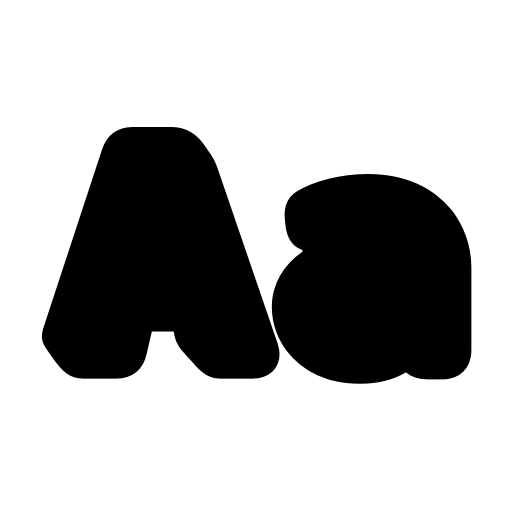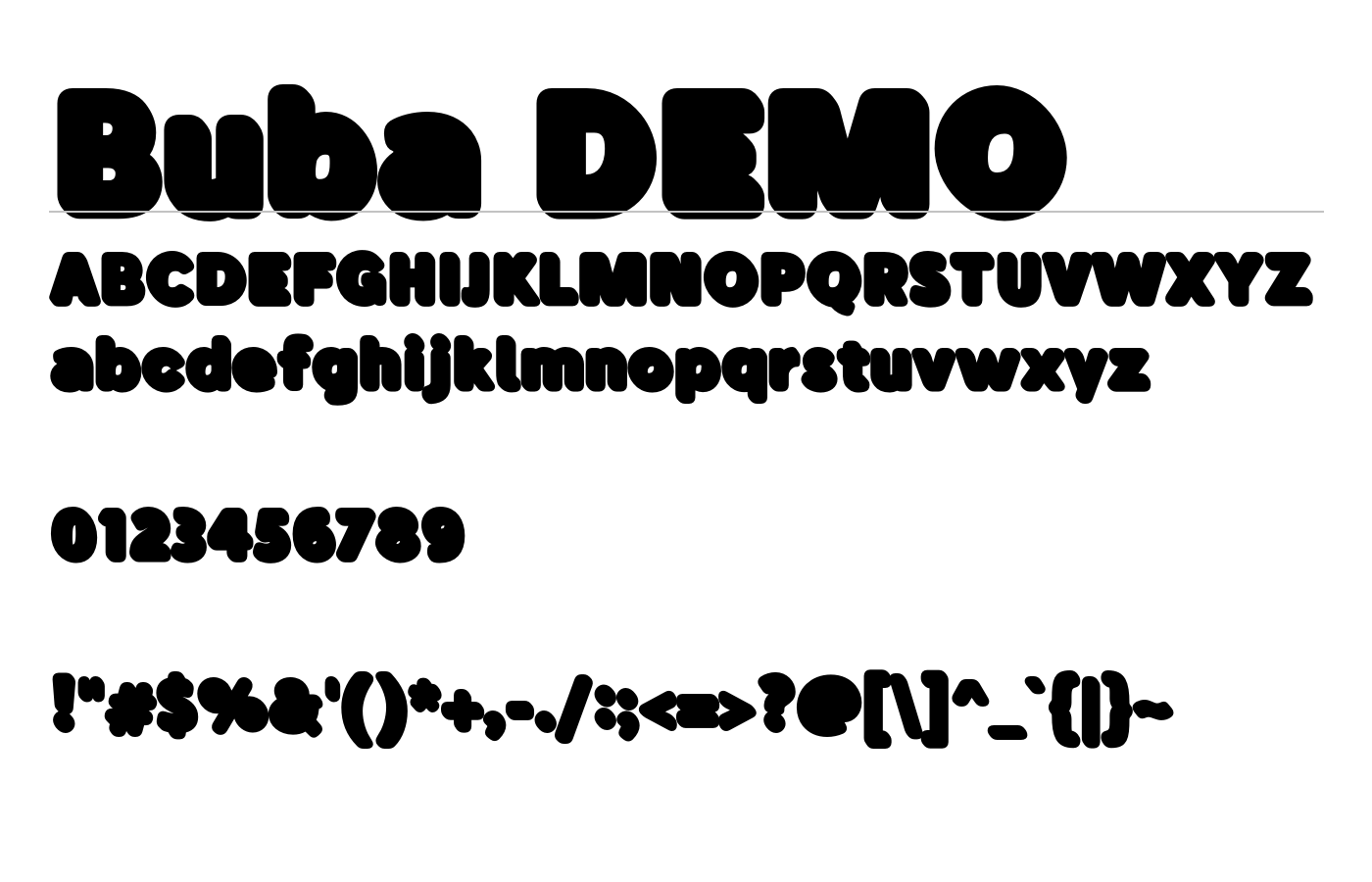
Buba DEMO is a bold, rounded sans serif font with a playful and friendly character. Its thick, even strokes and compact letterforms give it a strong presence while maintaining a soft, approachable feel, making it ideal for eye-catching headlines, branding for children’s products, or any design seeking a fun yet solid look. This font works well in settings that require warmth and personality without sacrificing readability.
Buba DEMO Font
About Buba DEMO Font
| Font family | Buba DEMO Font |
| Designer | Genilson Lima Santos |